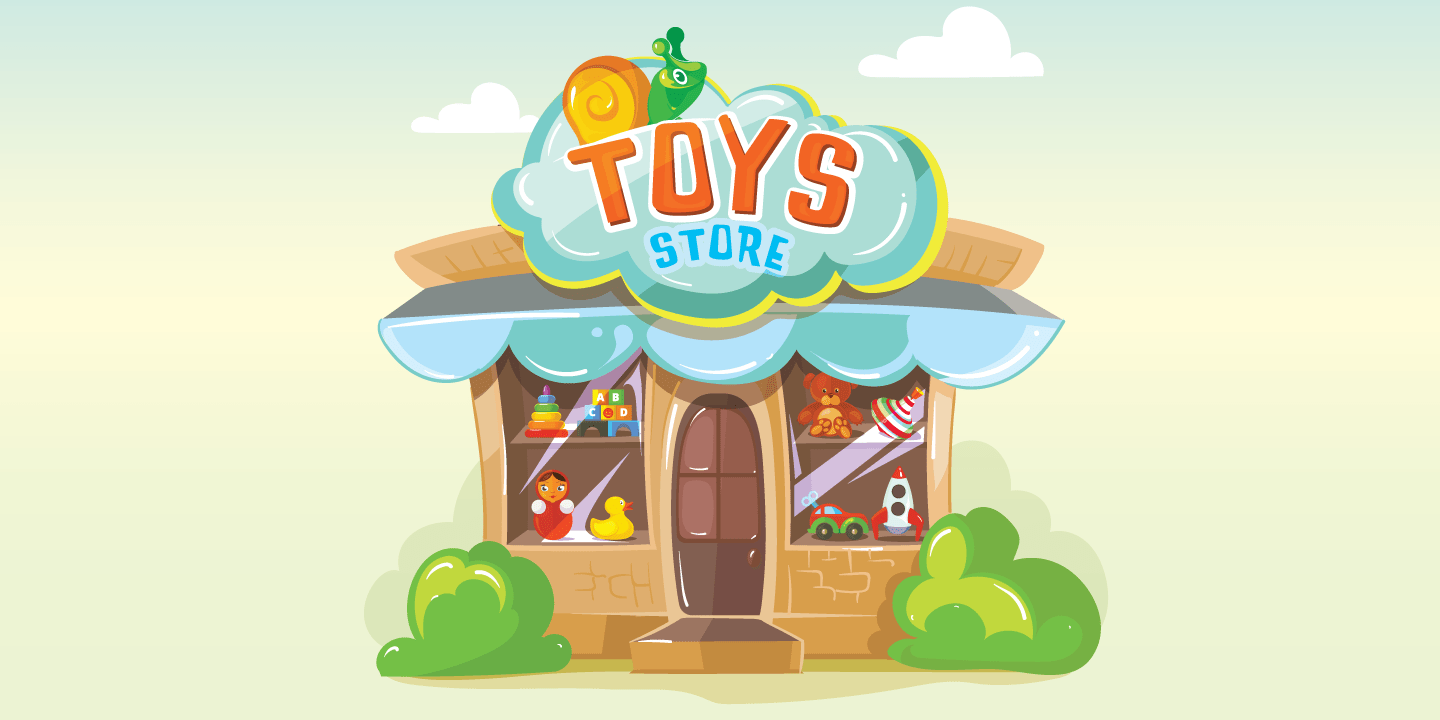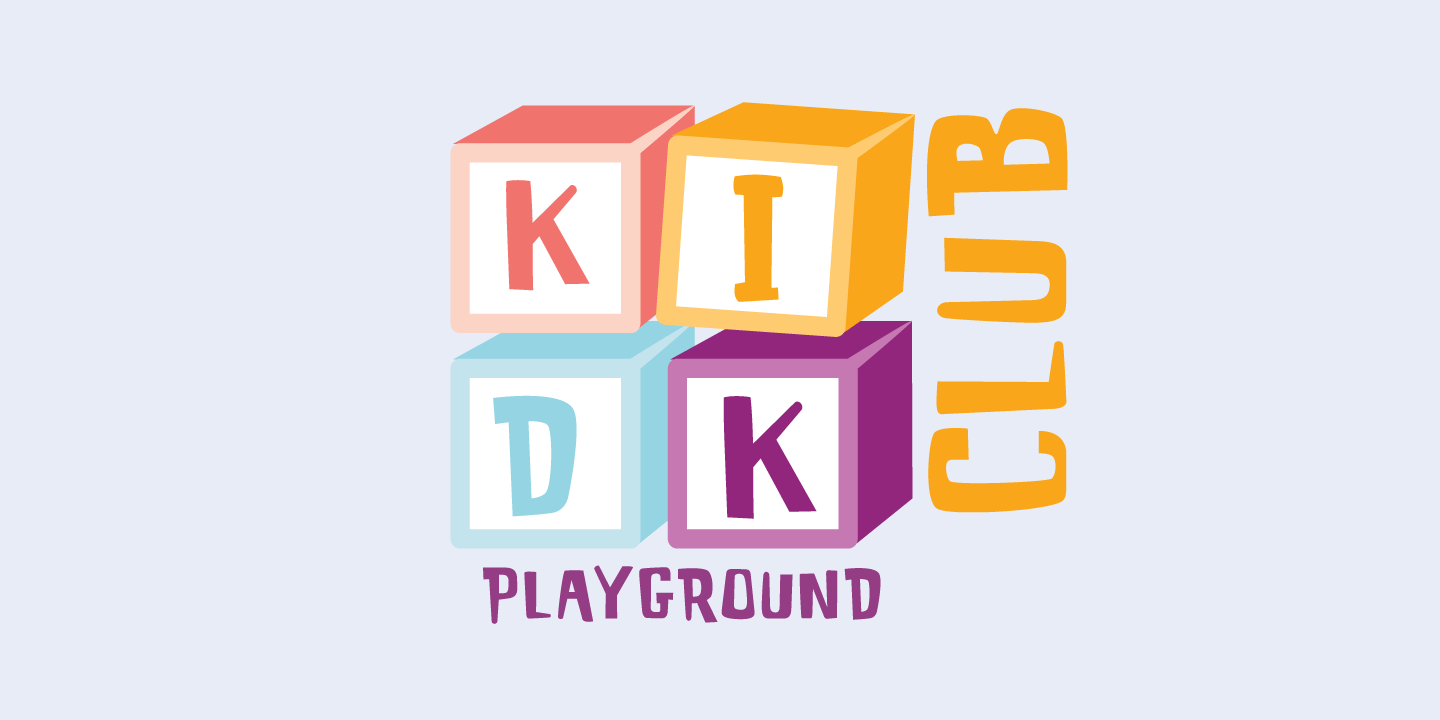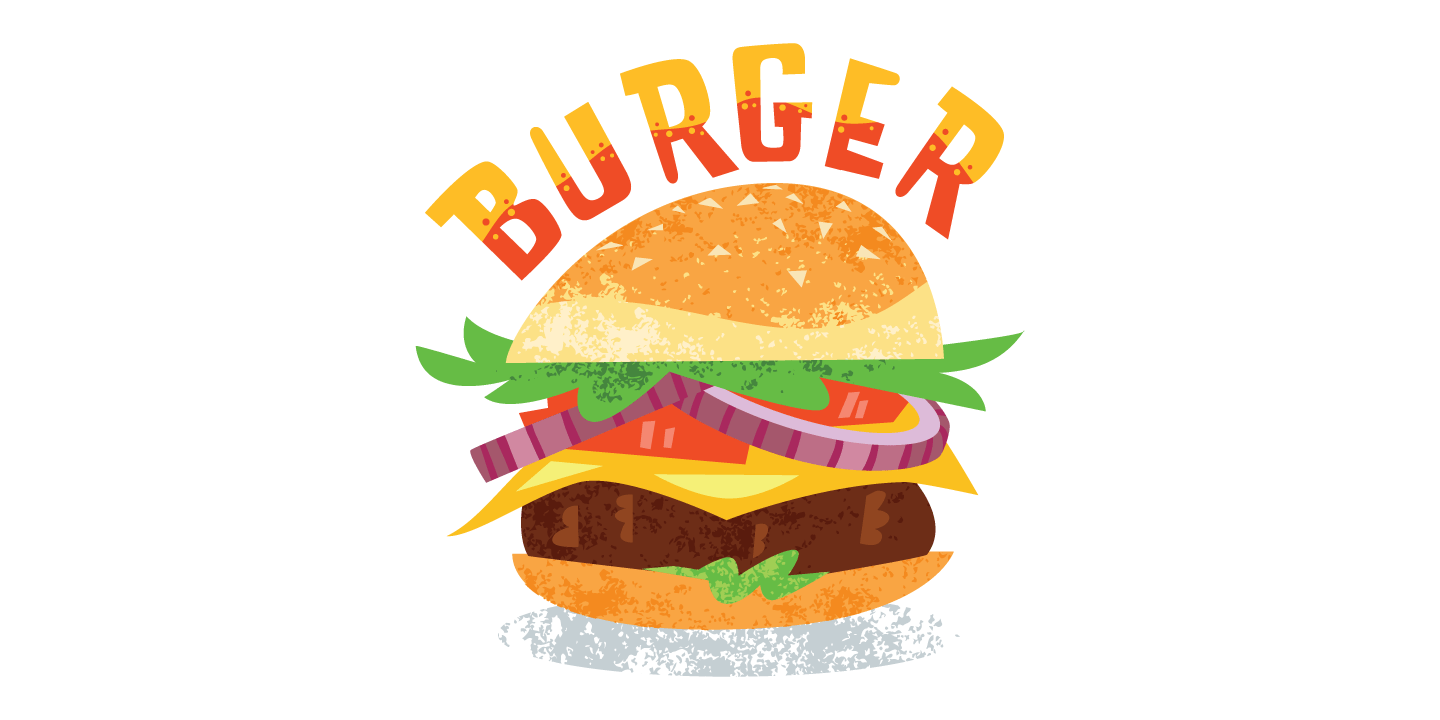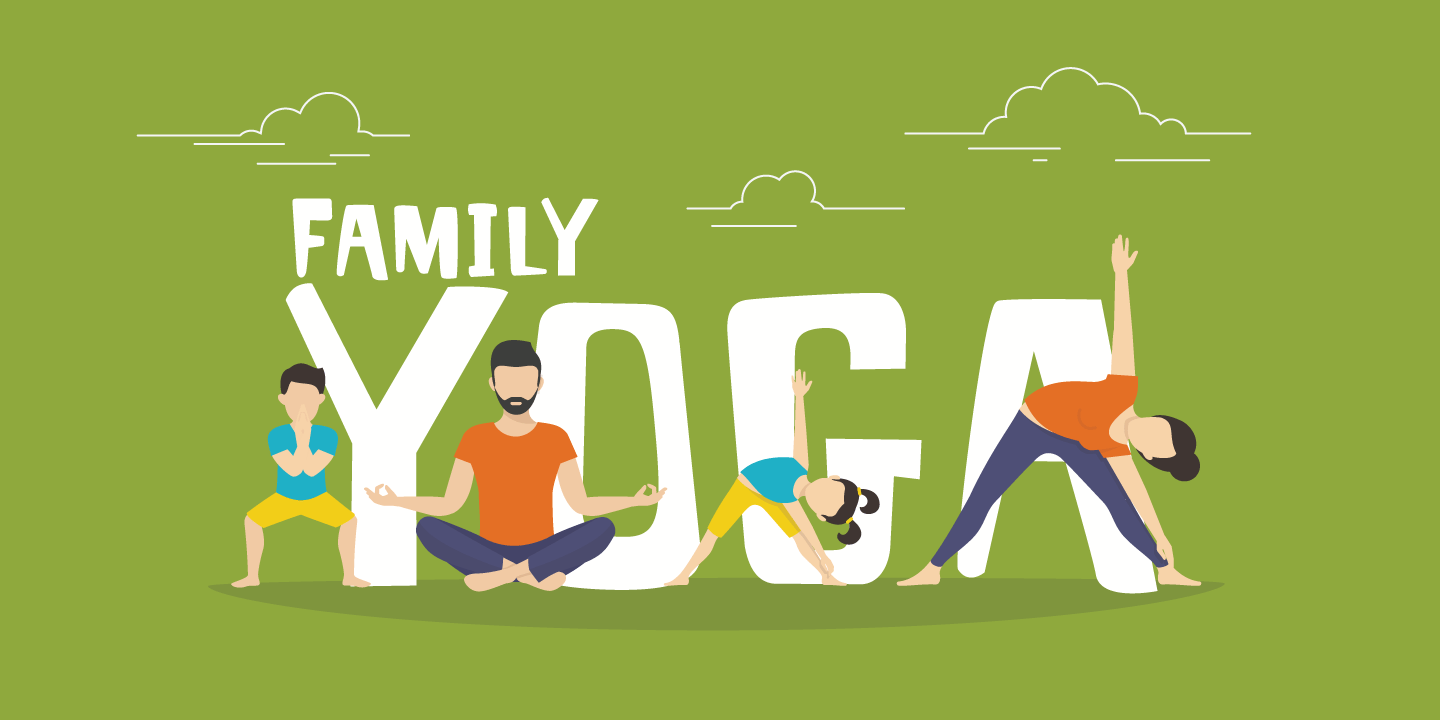
About Echophonic
Try new Echophonic today! It\’s hi-fidelity sound you can actually see! Another miracle of modern science in several weights by Rocket Type.